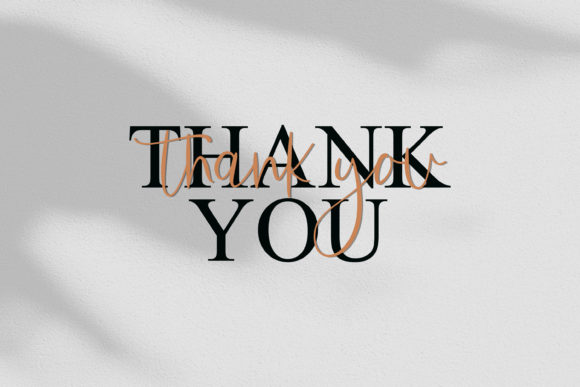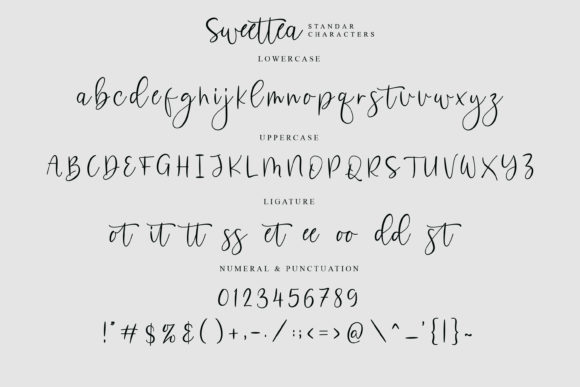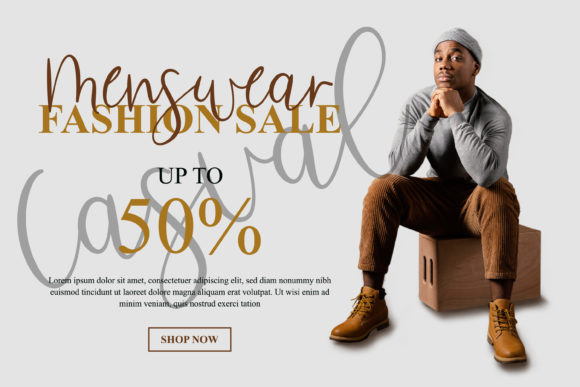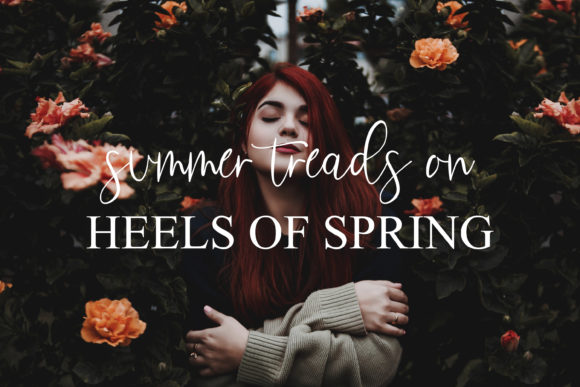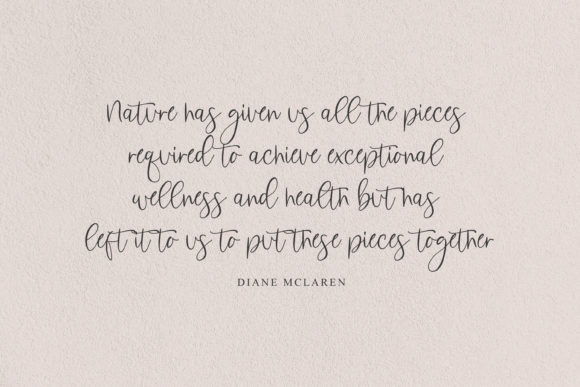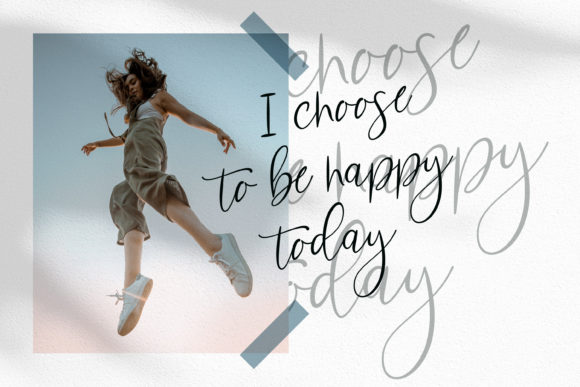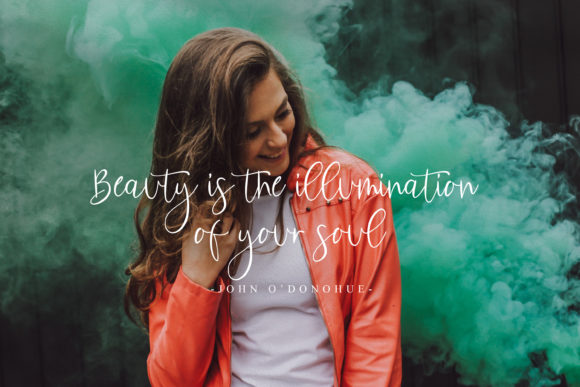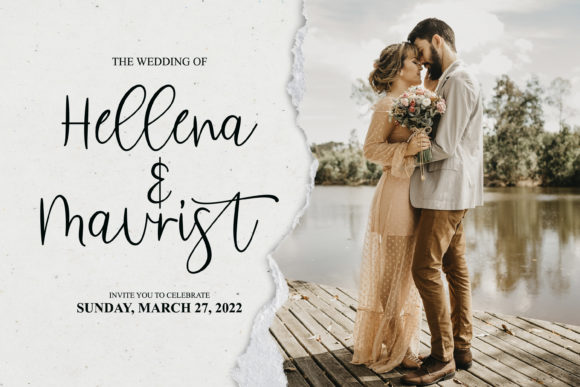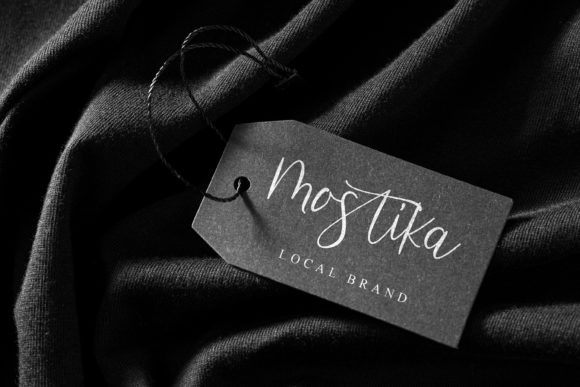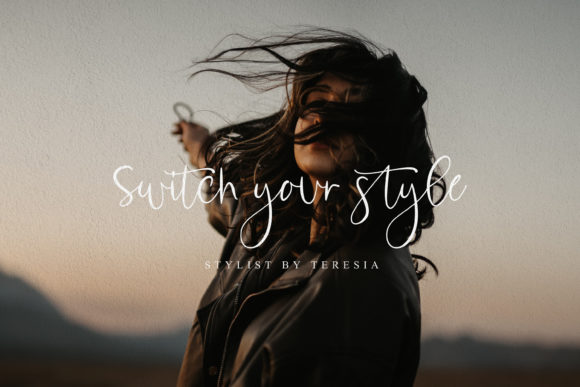
Sweettea Script Font
About Sweettea Script Font
Sweettea is a Signature Script Font with a modern calligraphy feel.
Sweettea is perfect for modern projects, headings, branding, blogs, fashions, logos, brandings, invitations, and more!